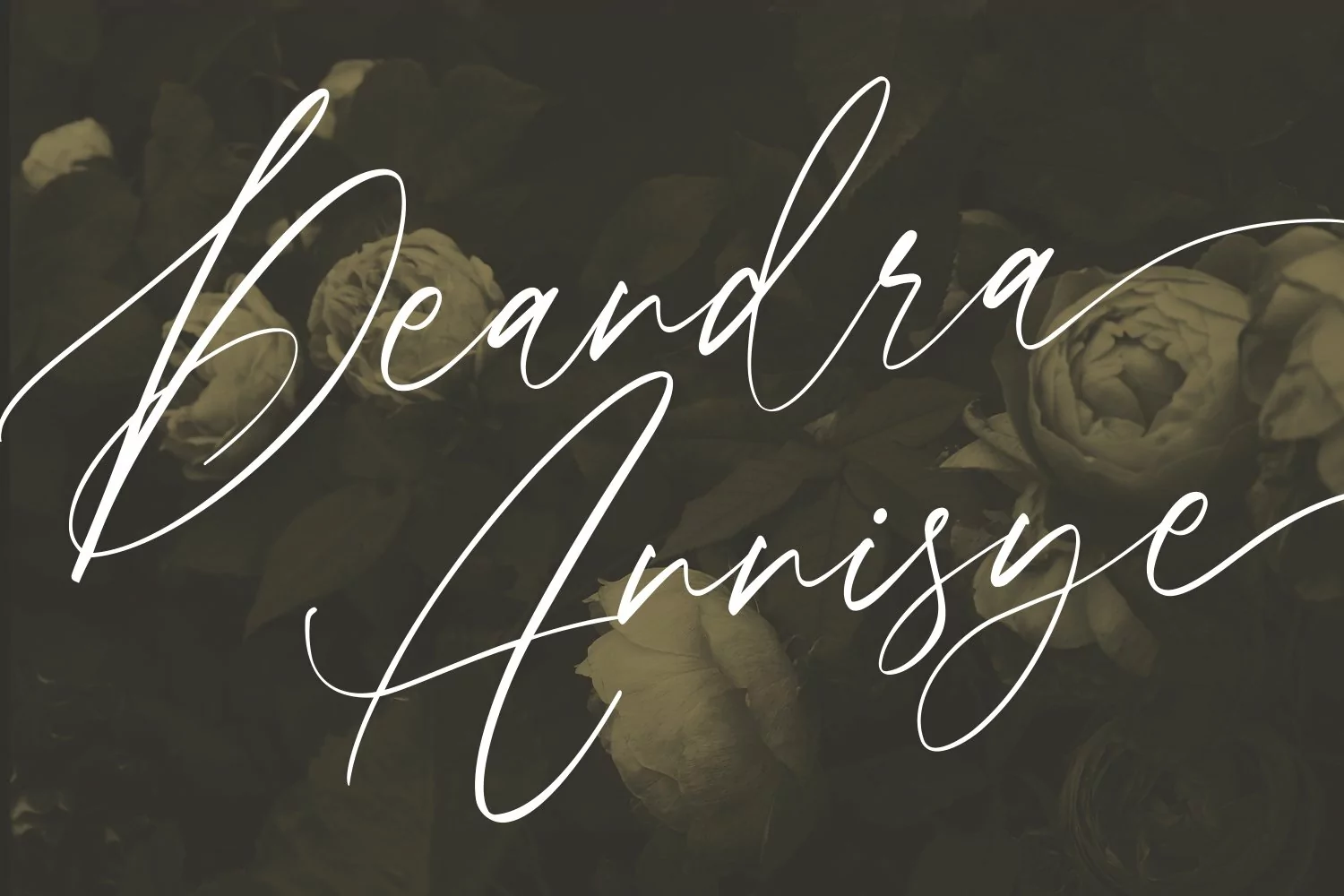
Seillamikha is a modern feminine script font. With high contrast stroke, slanted and fun character with some of ligatures. To give you an extra creative work. Seillamikha font support multilingual more than 100+ language. This font is good for logo design, Social media, Movie Titles, Books Titles, a short text even a long text letter and good for your secondary text font with sans or serif. Make a stunning work with Seillamikha font.